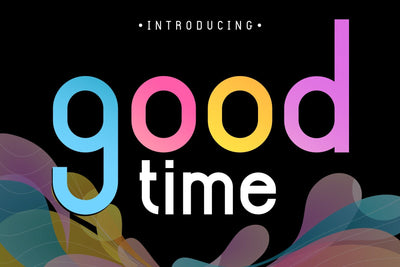
Good Time Font
Good Time is a simple, modern, yet stylish, Sans Serif font. It is suitable for logos, headline font, corporate identity, brand identity, the apparel industry, posters, music, movie, game, magazine, books, comics, cartoons, YouTube, Instagram, websites, or any of your creative design projects.